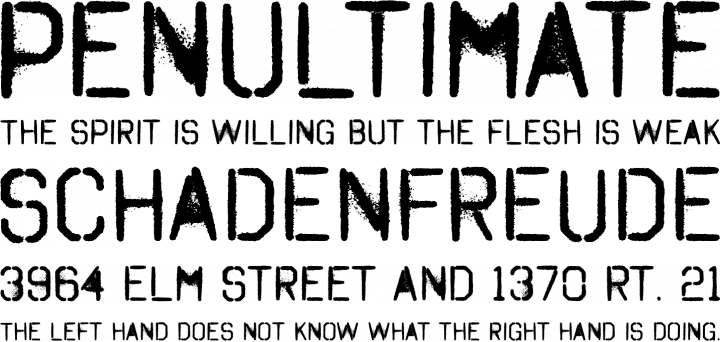
Spray Paint Font Powerpoint
Download sister spray from dafont; Spraypaint is common in graffiti, stencils, army and grunge looks.
Spray paint font powerpoint. Now open that file into google drive slides and edit at your convenience. Spray paint font effects can be further edited to increase the spray effect, fade it, increase or decrease the size, change the spacing and clarity and merge or combine two or more fonts in order to increase the detail level of the document. Alternatively, you can also check our partner website for ready to use google slides.
If you have any suggestions or problems with this template, please click and you'll get our reply quickly. The font contains upper and lowercase characters, numbers, punctuation, symbols and stylistic sets. Click to find the best 29 free fonts in the dripping paint style.
You could try to remember all of the steps and apply the effect to the next photo as well—or you could save some time and use the format painter.the format painter is a tool in word and powerpoint that lets you copy some formatting from one object and apply it to another one. Making the web more beautiful, fast, and open through great typography You can use a font of your choice, but we would recommend you to download overdrive sunset as it is the best to achieve a paint brush effect.
It’s ink, and when you mix the drips with the scattered nature of the letters you’ve really got. Add the letter from the. Faq contact 100% free for commercial use.
In the shapes list, from the rectangles group, select and add to the slide the rectangle shape: Looking for dripping paint fonts? Similarly, you will have to copy and paste your new glyph collection.
For more information on what format painter can. Look on the disk partition where you installed the operating system for a folder called windows, and in it, you should find the fonts folder. Spray painted fonts look like they were sprayed from an aerosol can.
This powerpoint template contains a lot of artistic elements with a theme of graffiti art. Cartoon comic groovy old school curly western eroded distorted destroy horror. The octin spray paint font creates this selective spray paint look by keeping the spray paint accent in selected letters.
We have 43 free splatter fonts to offer for direct downloading · 1001 fonts is your favorite site for free fonts since 2001 Choose the ppt/pptx and upload it to your google drive folder. The font includes upper and lowercase characters, numbers, punctuation, and multilingual characters and accents.